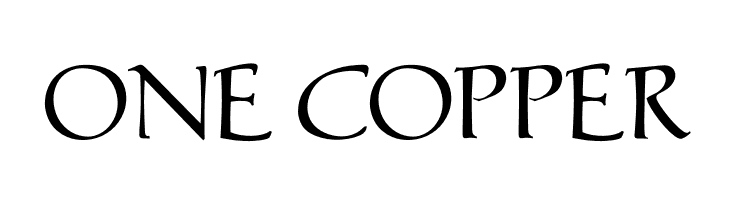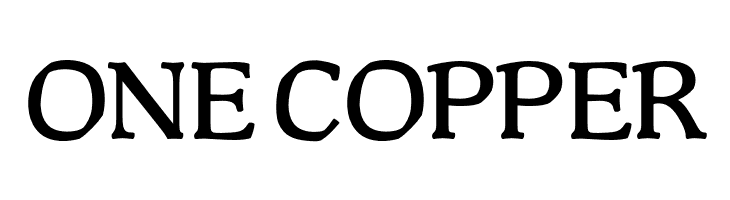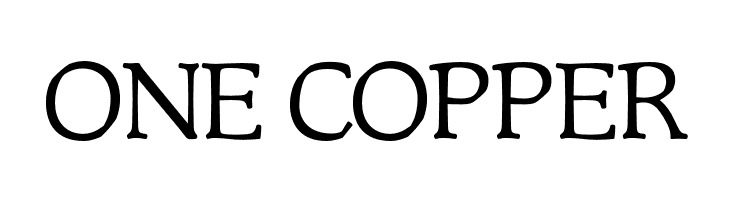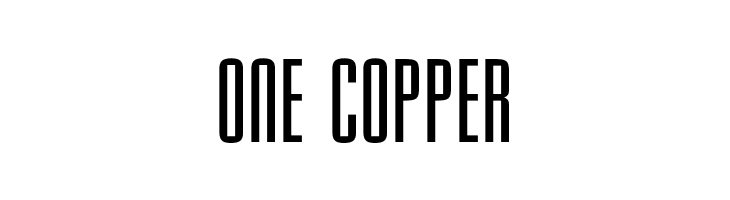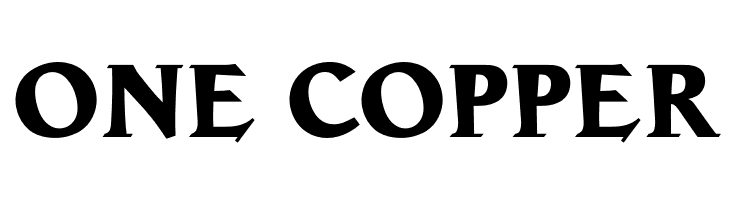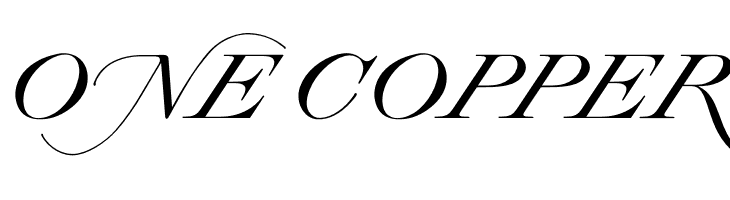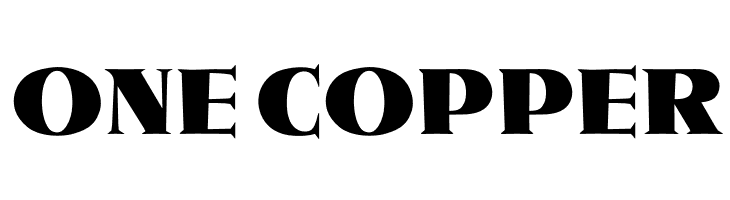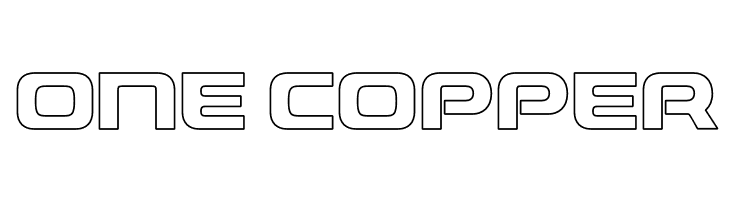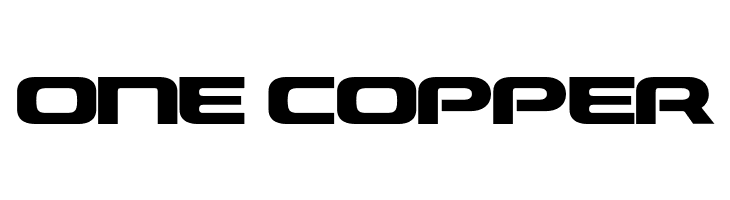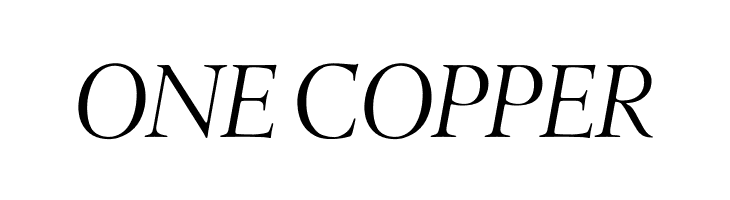
A bold, dynamic font with modern and classic elements, featuring sharp angles and smooth curves.
A bold, futuristic font with geometric shapes and a modern aesthetic.
A bold, futuristic font with geometric shapes and rounded edges.
A futuristic, geometric font with open, hollow letterforms and sharp angles.
A futuristic, geometric font with hollow, outlined characters.
A refined serif font with elegant, thin strokes and a classic aesthetic.
A bold, dynamic serif font with sharp angles and high contrast.
A bold, authoritative font with strong strokes and elegant curvature.
An elegant serif italic font with graceful curves and sharp serifs.
A classic serif font with elegant proportions and moderate contrast.
A classic serif font with semi-bold weight and moderate contrast, ideal for elegant and readable text.
An elegant script font with flowing, cursive letterforms and graceful swashes.
A classic serif font with elegant curves and medium weight.
A classic serif font with bold, elegant serifs and a timeless appearance.
A classic serif typeface with elegant, refined strokes and well-defined serifs.
A modern, geometric sans-serif font with clean lines and balanced spacing.
A sophisticated cursive font with flowing, high-contrast strokes and elegant curves.
A bold, dramatic font with angular serifs and a classic blackletter influence.
A bold, outlined font with a sporty, dynamic style.
A bold, classic serif font with strong serifs and medium contrast.
A bold, classic serif font with medium contrast and elegant serifs.
A classic, elegant italic font with refined serifs and a sophisticated appearance.
A classic serif font with elegant strokes and refined proportions.
A bold, playful font with irregular, dynamic letterforms.
A bold, geometric font with a futuristic and modern design.
An elegant, high-contrast font with decorative elements and artistic flair.
A bold, high-contrast serif font with a classic yet modern appeal.
A bold, high-contrast serif font with a vintage yet modern style.
A classic serif font with elegant, sharp serifs and a modern touch.
A bold, angular font with a futuristic and striking design.
A classic serif font with elegant curves and a refined, sophisticated appearance.
A modern, condensed font with medium contrast and sleek design.
A bold, high-contrast serif font with sharp, angular serifs and a dramatic style.
A classic serif font with elegant strokes and balanced proportions.